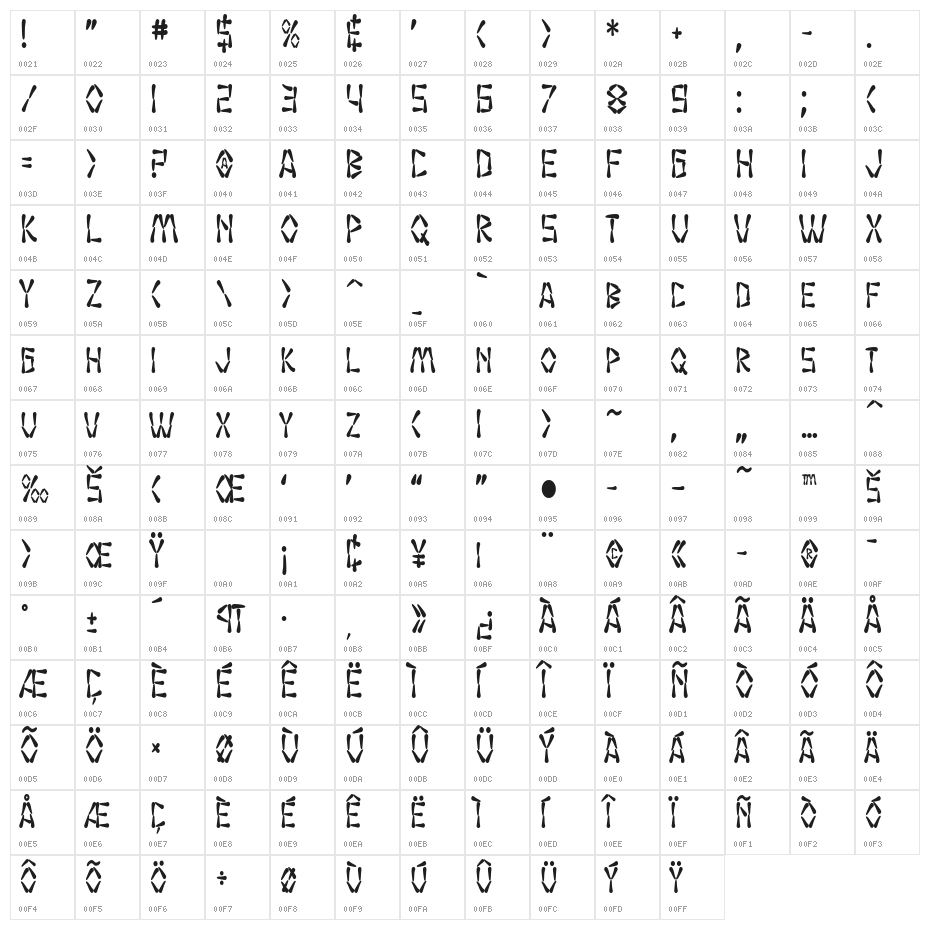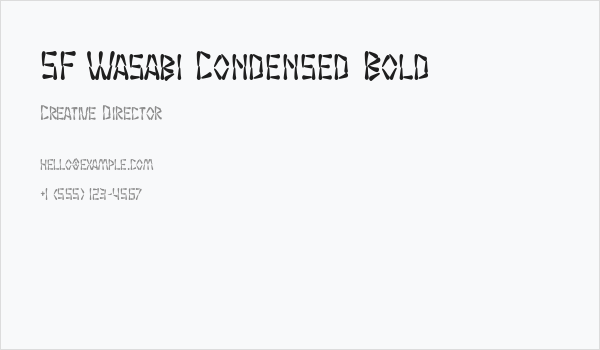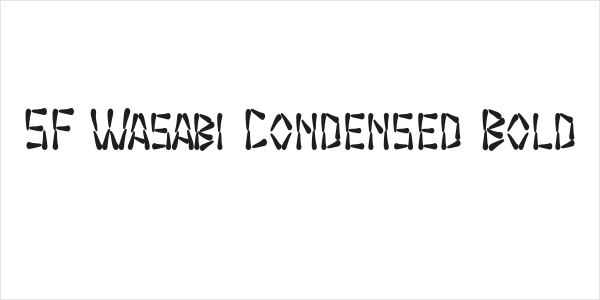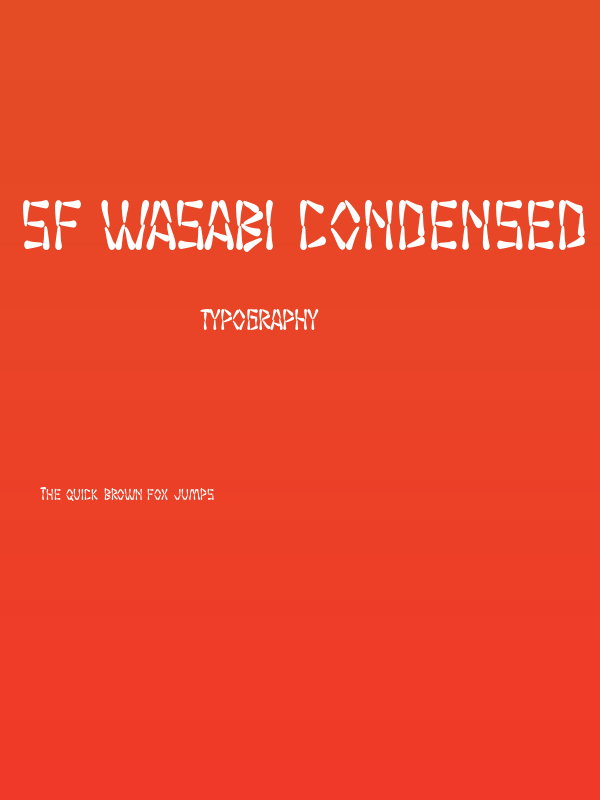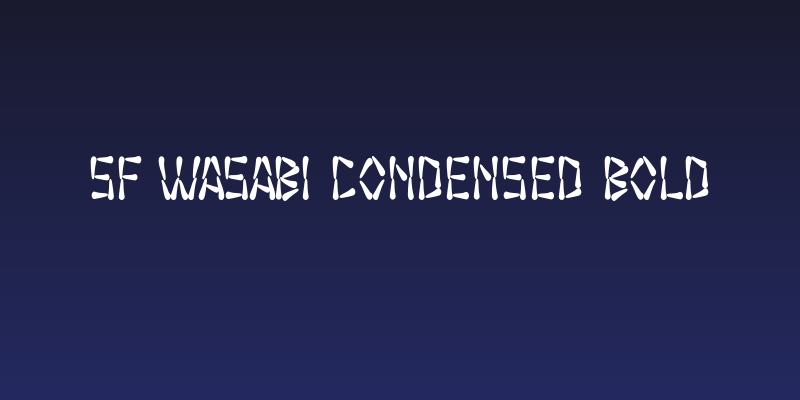
SF Wasabi Condensed Bold Font
SF Wasabi Condensed Bold Description
This font features a unique, bold design with a condensed structure, characterized by its thick, brush-like strokes that give it a dynamic and energetic appearance. The letters are crafted with a playful yet structured form, making it stand out with its distinctive style. The uppercase and lowercase letters maintain a consistent weight, ensuring readability while adding a creative flair. The numbers and special characters follow the same bold and condensed style, providing a cohesive look across all elements. This font's artistic design makes it suitable for eye-catching displays and creative projects.
| Proposed Projects | Ideal for posters, branding, packaging, and creative headlines. |